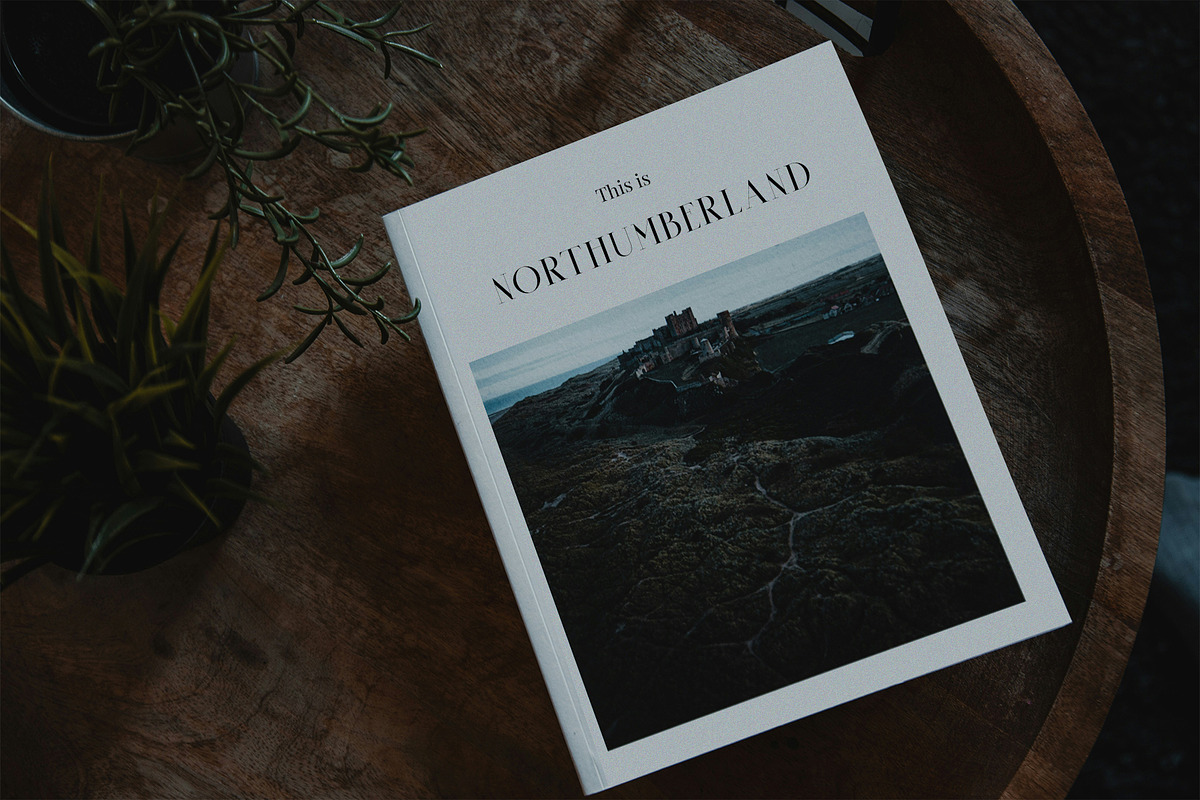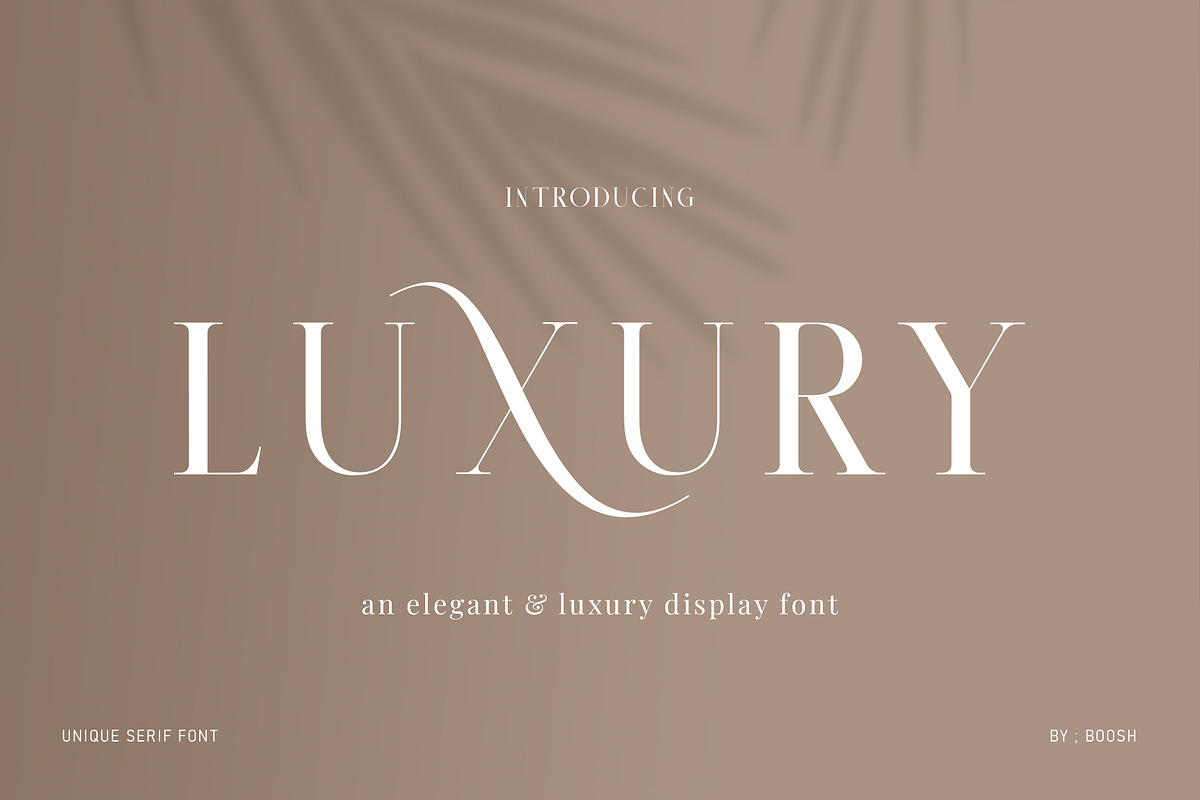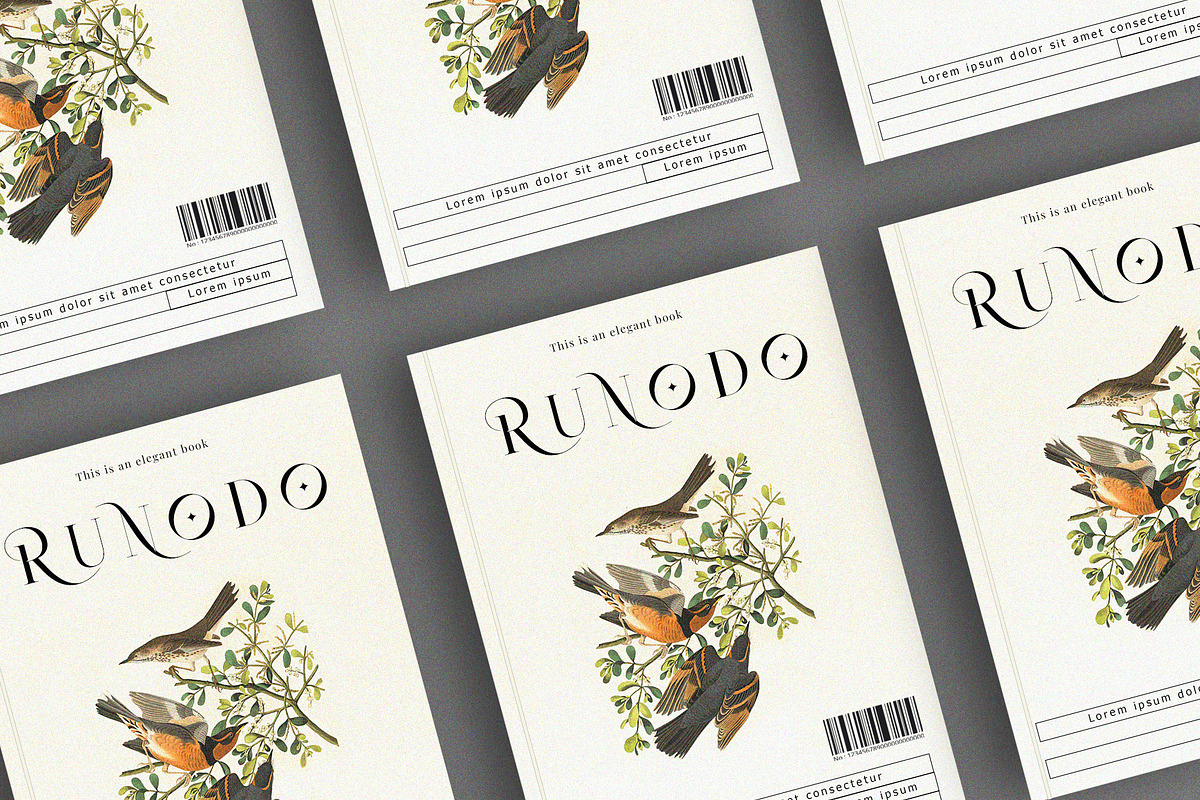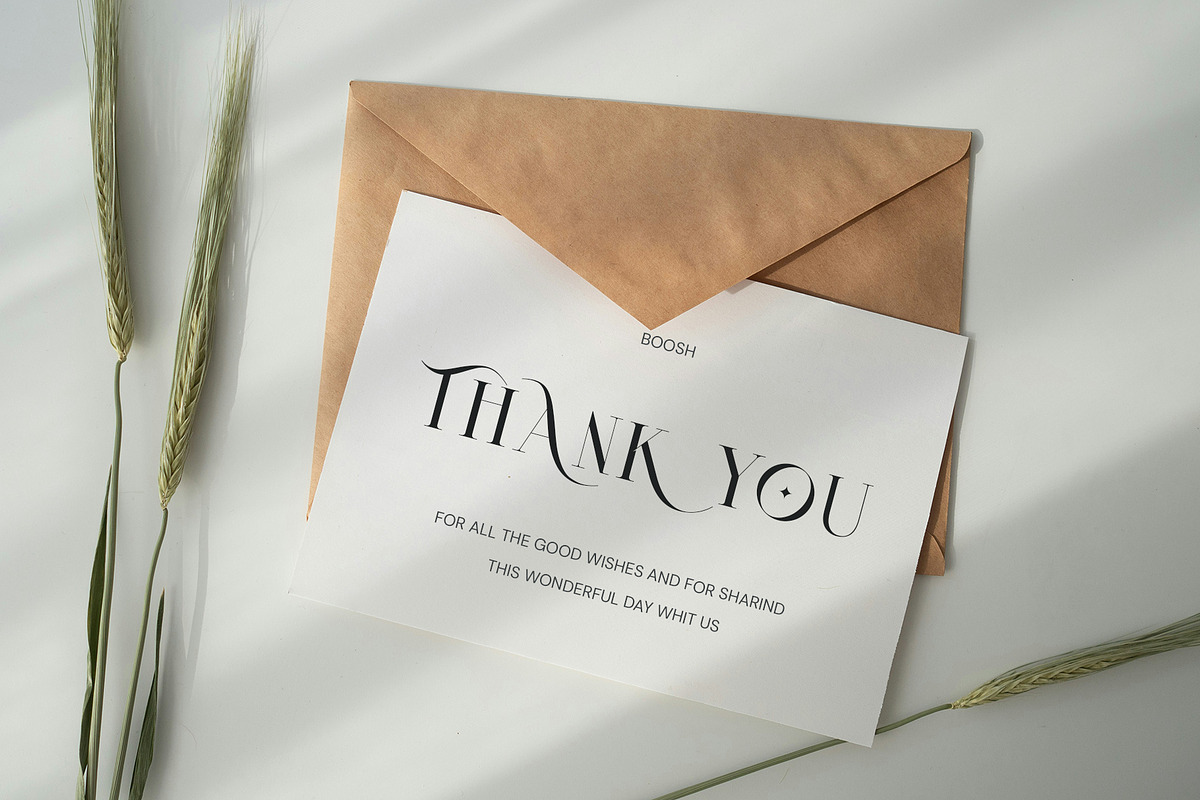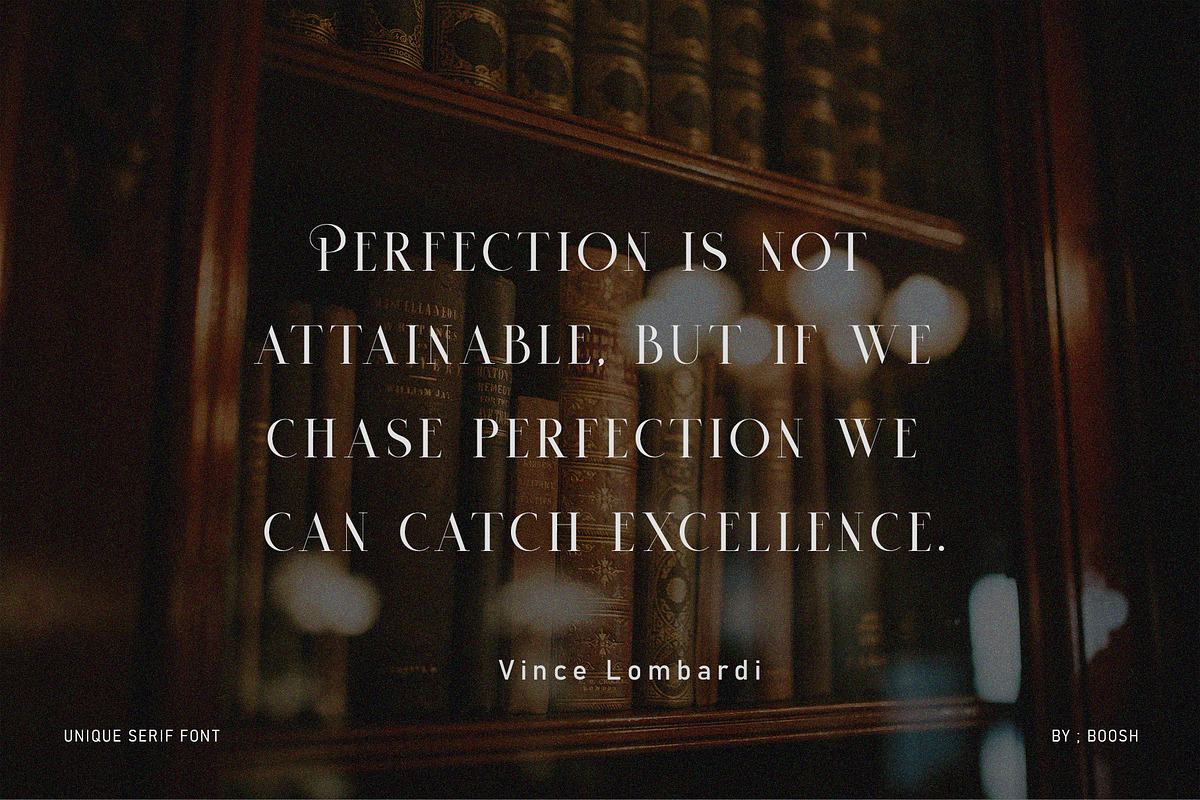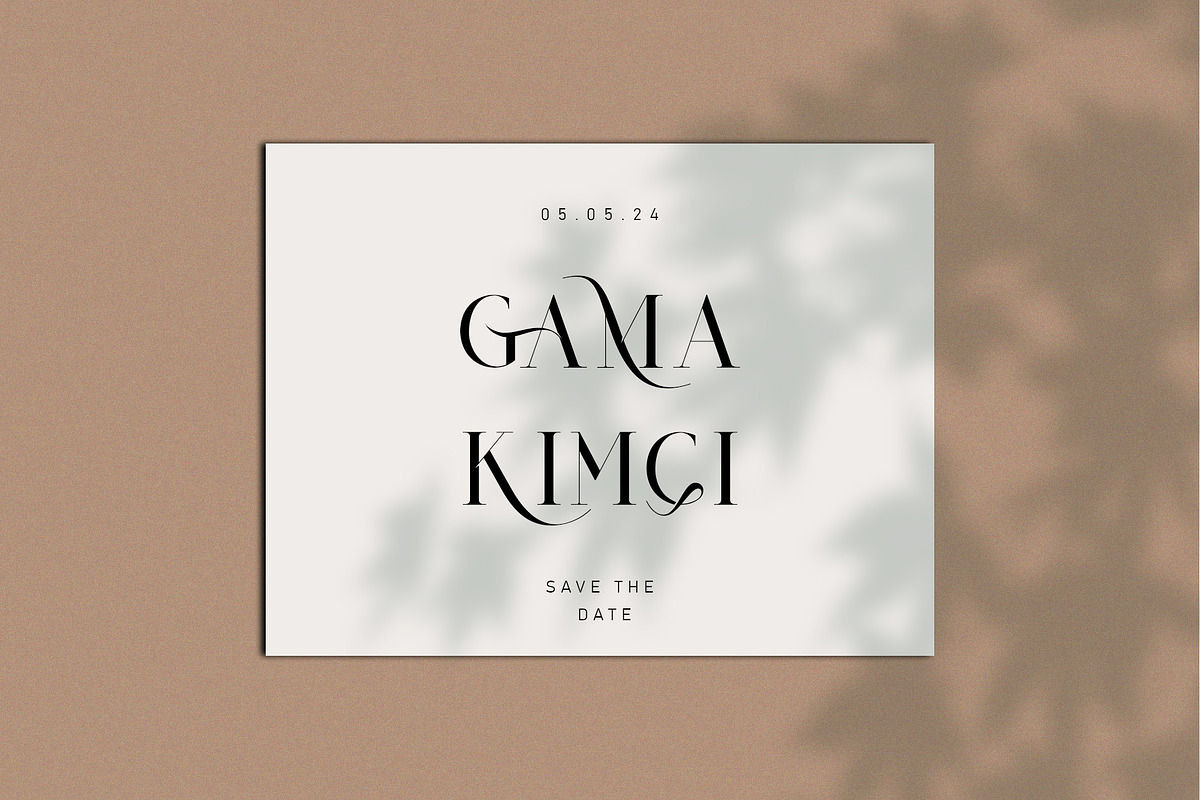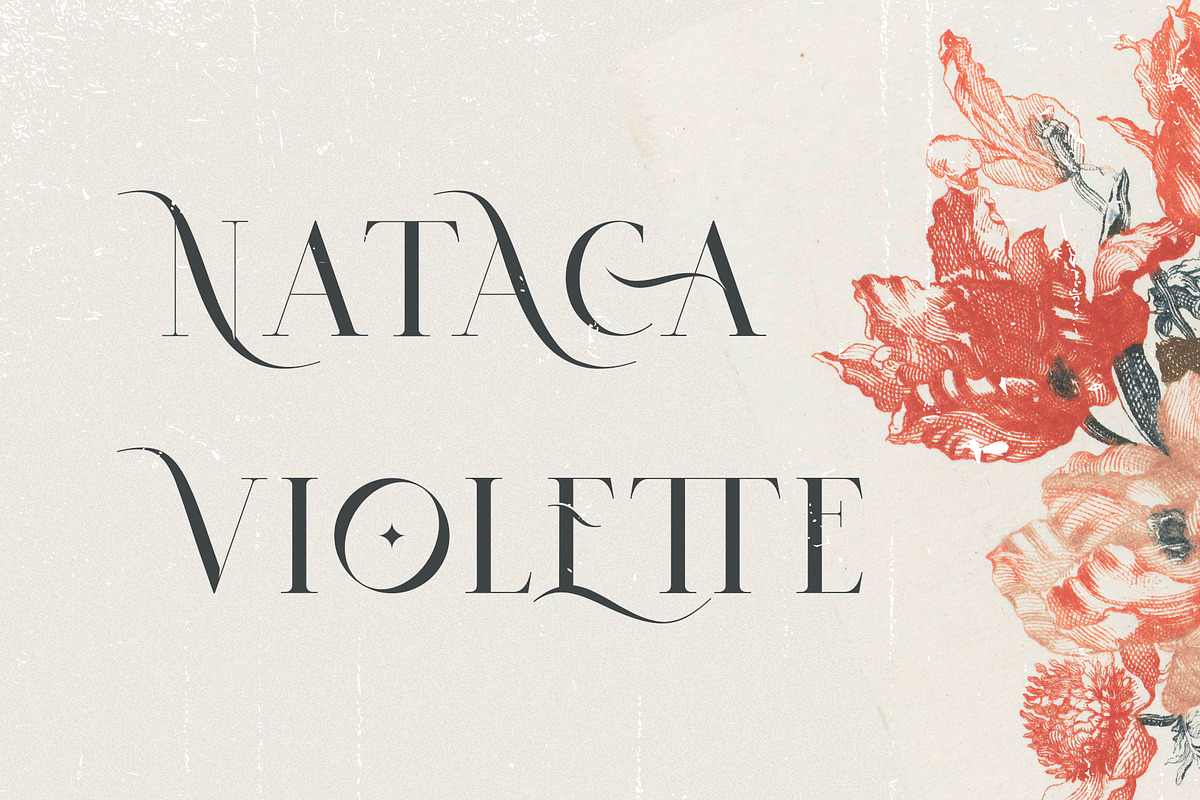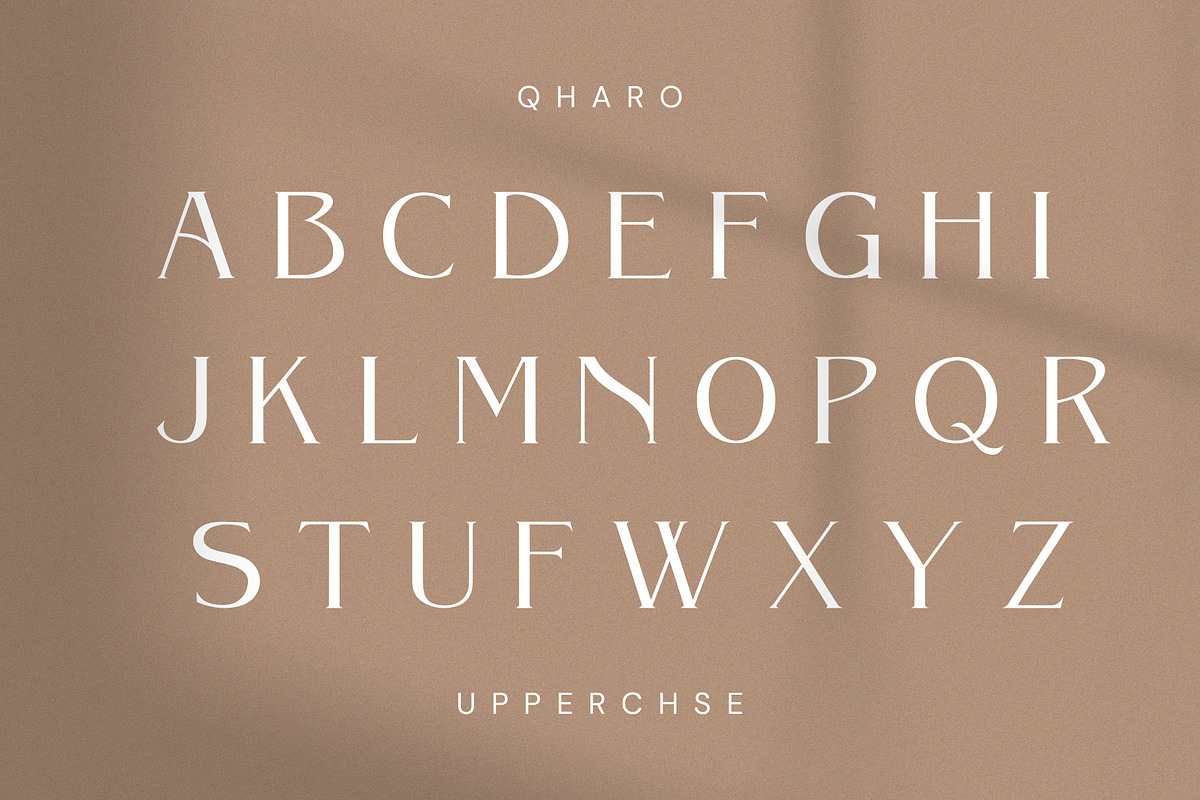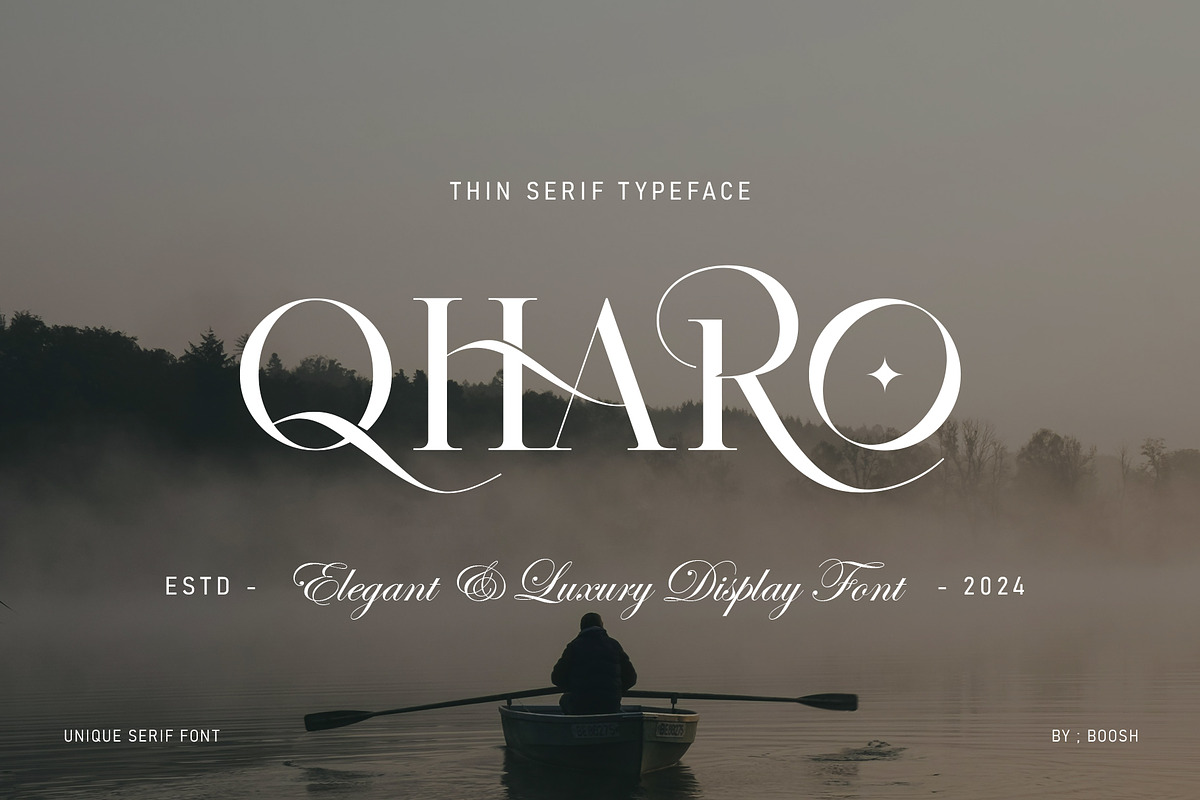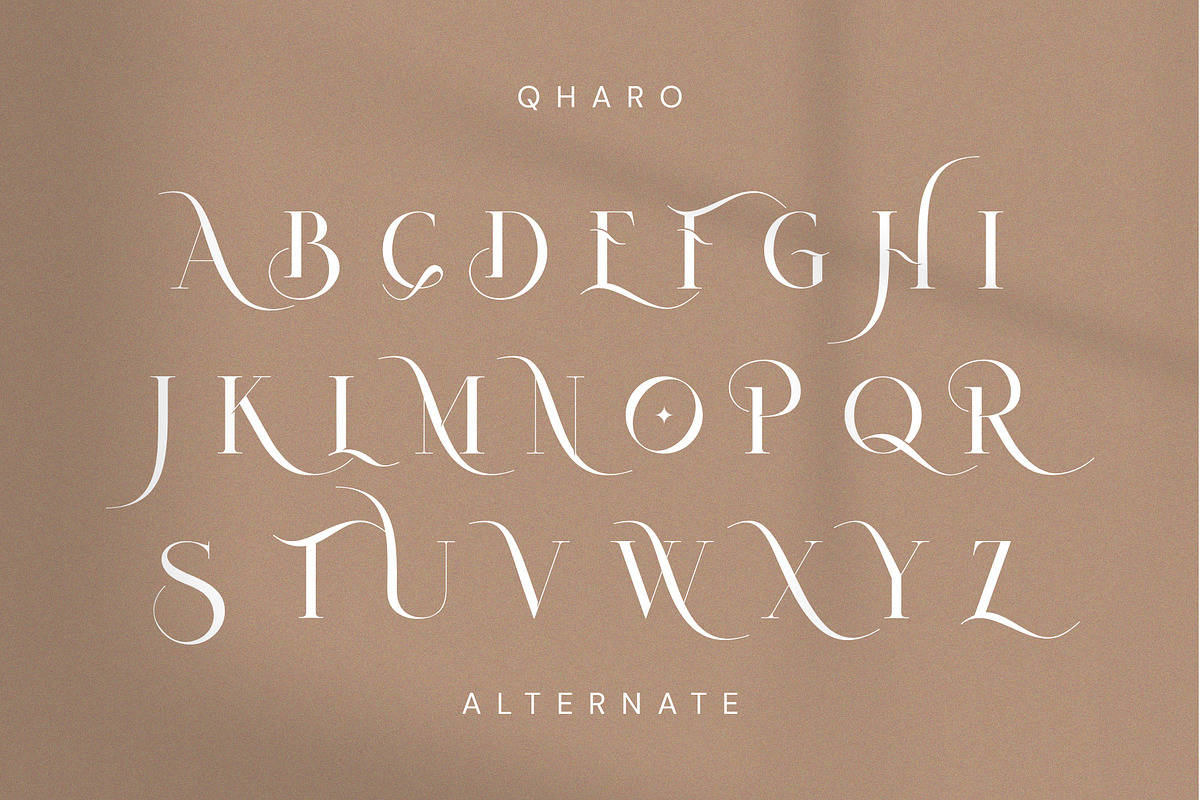
QHARO - Elegant & Luxury
QHARO Serif is a balanced, smooth, elegant and stylish serif font. He has a beautiful character. It fits perfectly with invitation card designs, company logos, movie titles, movie names, business cards, book titles, brand names and various other designs.